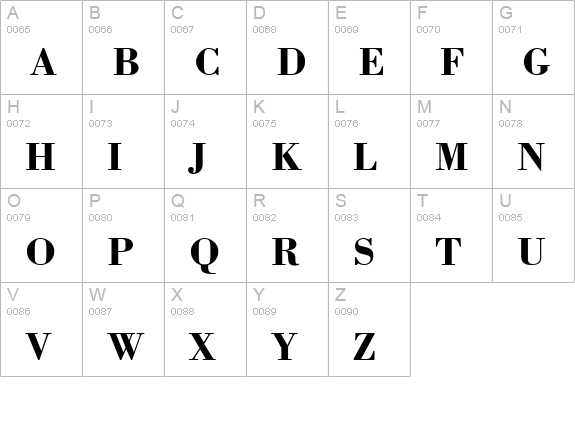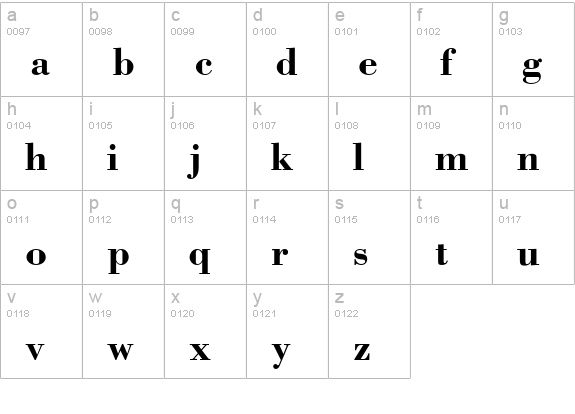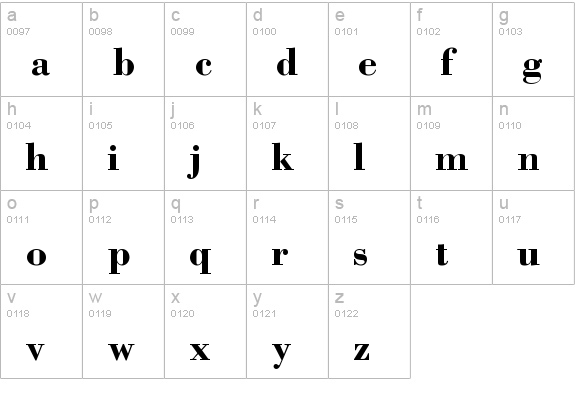
Bodoni SSi Bold Font Details
Bodoni SSi Bold is a strong, high-contrast variant in the Bodoni typeface family \xE2\x80\x94 well suited to headlines, attention-grabbing titles, and strong calls-to-action.
Bodoni SSi Bold font is a timeless classic that exudes elegance and sophistication. Its distinctive high contrast strokes and sharp serifs make it ideal for creating eye-catching headings and titles that demand attention. The bold weight of this font adds a touch of modernity while still maintaining the traditional charm of the Bodoni style. What sets Bodoni SSi Bold font apart is that it is available for free download at FontsMarket.com. This means that you can easily access and use this versatile typeface for all your design projects without any cost. Whether you are designing a poster, a logo, or a branding project, Bodoni SSi Bold font will elevate your work with its sleek and polished appearance. Embrace the beauty and versatility of Bodoni SSi Bold font today by downloading it for free at FontsMarket.com. Let this timeless typeface inspire your creativity and bring a touch of sophistication to your designs.